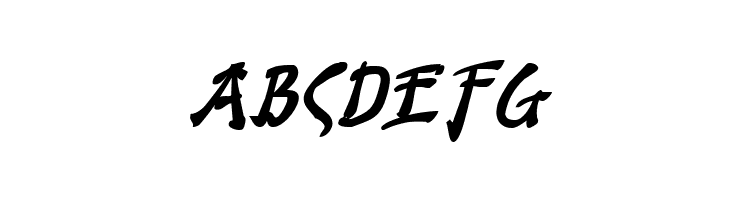
SCHOOL DAYS 2 PERSONAL USE Regular Font
- Font: SCHOOL DAYS 2 PERSONAL USE Regular
A bold, calligraphic font with dynamic, fluid strokes and sharp angles.